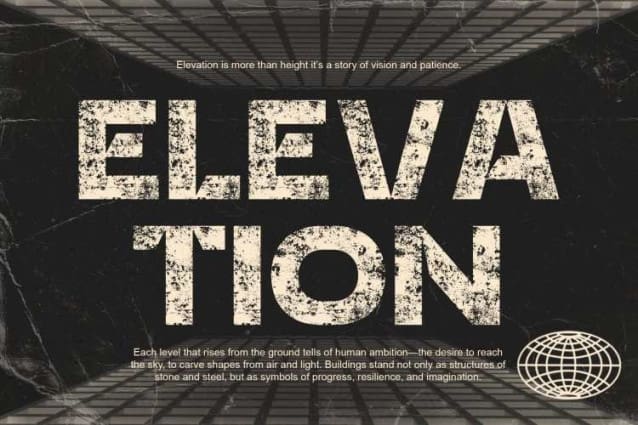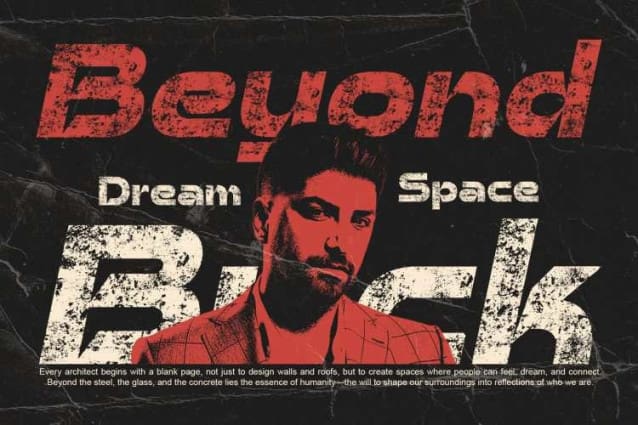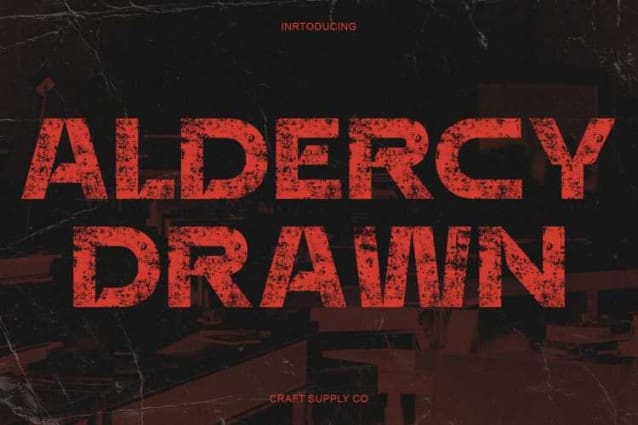
Aldercy Stamp Font
Aldercy Stamp Font – This is a bold display font that commands attention with its strong structure and futuristic edge. Inspired by techno aesthetics, it combines modern design with solid, confident letterforms that instantly draw the eye.
Stamp Texture for Authentic Vintage Appeal
Adding a stamp effect, this font introduces a rugged, textured finish that gives every character a sense of authenticity and tactile depth. The fusion of modern shapes with a vintage surface creates a unique contrast that feels both industrial and timeless.
Perfect for Headlines and Impactful Designs
Built for bold communication, this font excels in headlines, posters, and striking branding projects. Its heavy presence and textured finish make it ideal for designs that need to stand out with authority and style.
Versatile for Modern and Retro Projects
Whether you’re crafting a tech-inspired campaign or a vintage-themed layout, this font adapts effortlessly. Its mix of modern energy and aged character ensures your typography remains dynamic, expressive, and unforgettable.